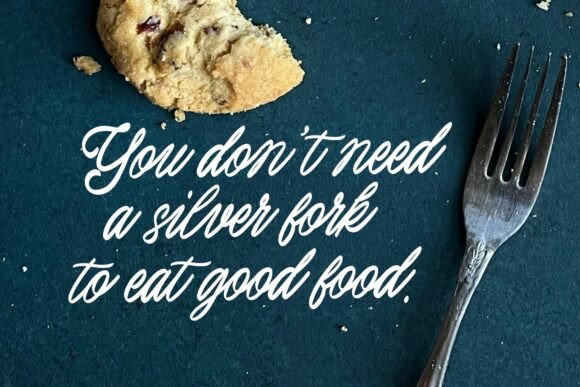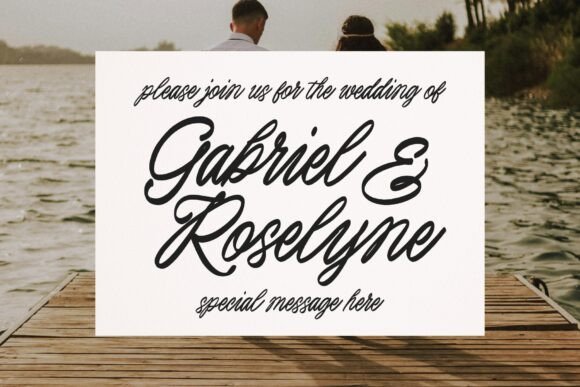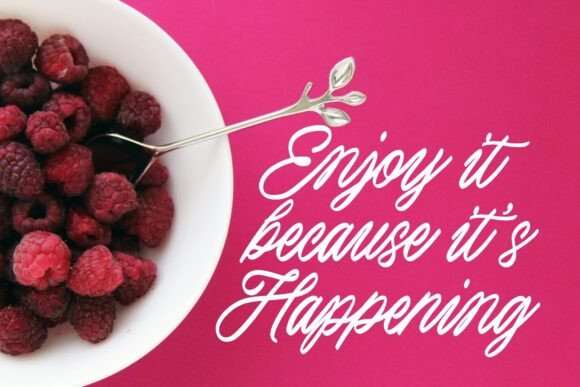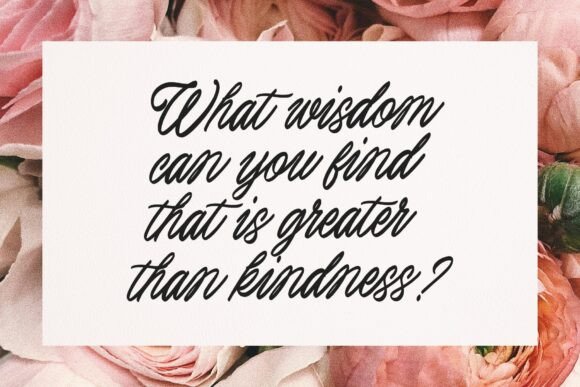
Unleash the Whimsy in Your Designs
Have you ever found yourself scribbling away in a notebook, trying to capture the perfect phrase or idea? The scratch of the pen on paper, the flow of ink as the words begin to take shape – it’s a moment of pure creativity, and one that can be both soothing and inspiring. For designers, this feeling of fluidity and expression is exactly what the Baneberries Delight Font aims to evoke.
This enchanting handwriting beauty script typeface combines elegance with a touch of whimsy, bringing a sense of warmth and personal touch to any design. With its flowing, hand-drawn strokes and refined curves, Baneberries Delight Font is perfect for projects that seek both sophistication and playfulness.
For designers, the value of this font lies in its ability to add a unique and delicate flair to any project, making it a must-have for those looking to take their designs to the next level.
Baneberries Delight Font Key Features
- Font Family: Baneberries Delight
- Unique Characteristics: Includes 4 alternate letterforms, 6 swash letters, and 2 ligatures for added flair and sophistication
Baneberries Delight Font Review
I recently had the chance to work with the Baneberries Delight font, and overall, I have mixed feelings about it. While it’s not a bad font, it’s not exactly a standout either.
- Unique Character: The font has a distinct personality, which can be great for brands or designs that want to stand out.
- Legibility: Despite its playful nature, the font is surprisingly easy to read, even at smaller sizes.
- Customization Options: The font comes with a range of styles and weights, making it easy to tailor to different design needs.
- Overuse: The font’s quirky nature can quickly become grating if overused – it’s best to use it sparingly.
- Limited Versatility: While the font is great for some projects, it may not be the best choice for more formal or professional designs.
- No Neutral Weight: The font’s more ornate styles can make it difficult to find a neutral weight that works well for body text.
While Baneberries Delight is a decent font, it’s not one that I would recommend for every project. Its unique character and legibility make it a good choice for certain designs, but its limitations should be carefully considered before committing to it. Overall, it’s a solid, if unremarkable, addition to any font collection.
Tips for Getting the Most Out of Baneberries Delight Font
For the most striking effect, use Baneberries Delight Font in combination with bold or italic styles.
Consider pairing Baneberries Delight Font with other elegant or vintage-inspired fonts for a unique look.
Baneberries Delight Font is ideal for creative projects, such as invitations, greeting cards, and book covers.
It can also be used for branding and marketing materials, such as logos and business cards.
Use Baneberries Delight Font to add a touch of elegance and sophistication to your designs.